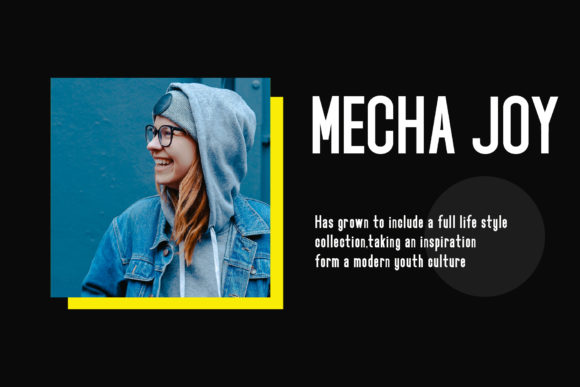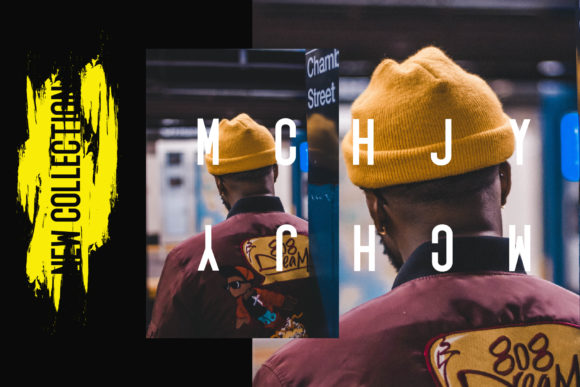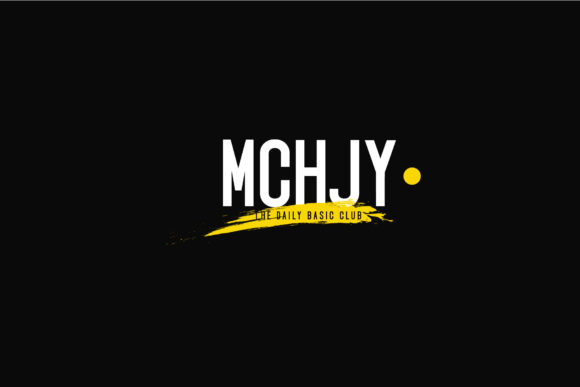
Introduction to Mecha Joy Font
Have you ever found yourself stuck in a creative rut, staring at a blank screen, and desperately searching for the perfect font to bring your project to life? For designers, this is a familiar scenario, and it’s where the magic happens. It’s in these moments of uncertainty that we stumble upon hidden gems, and that’s exactly what we’re about to introduce you to – the Mecha Joy Font.
| 👤 Author | MechaStudio |
This high-quality sans serif font is more than just a design resource; it’s a game-changer. Its versatility and simplicity make it a go-to choice for a wide range of creative projects, from digital designs to print materials. And the best part? Mecha Joy Font is available for free download, complete with a transparent background, giving you the freedom to experiment and push the boundaries of your imagination.
Whether you’re a seasoned pro or just starting out, Mecha Joy Font is an invaluable addition to your design arsenal. Its clean and modern aesthetic is sure to elevate your work and leave a lasting impression on your audience. So, what are you waiting for? Dive into the world of Mecha Joy Font and discover why it’s quickly becoming a favorite among designers worldwide.
Key Features of Mecha Joy Font
- High-quality design for creative projects: Mecha Joy Font is perfect for adding a touch of futuristic style to your designs.
- Unique characteristics: Mecha Joy Font features a bold, futuristic style with a mix of geometric and mechanical elements, making it a standout design resource.
Honest Review: Mecha Joy Font
I recently stumbled upon the Mecha Joy Font while searching for a design resource to enhance a creative project. The free download was a pleasant surprise, and I was excited to see how it would look in action.
Here’s what I liked about the font: ✨ High-quality design, ✨ creative and quirky style, and ✨ a wide range of characters, including numbers and punctuation. The transparent background was also a plus, making it easy to use with various design elements.
Here are some of the features I appreciated:
- Quirky style that adds a touch of fun to any design
- Wide range of characters, including numbers and punctuation
- Transparent background for easy use with various design elements
That being said, I did encounter a few limitations: ⚠️ The font is a bit on the heavier side, so it may not be suitable for projects that require a lot of text. Additionally, the font’s quirks can be a bit overwhelming if used extensively.
Overall, I’m impressed with the Mecha Joy Font. While it may have its limitations, it’s a great design resource for creative projects that require a bit of personality and flair.
Mecha Joy Font is a versatile font that can be used in a variety of creative projects, including graphic design, digital art, and even video game design. Its high-quality design and transparent background make it a popular choice among designers.